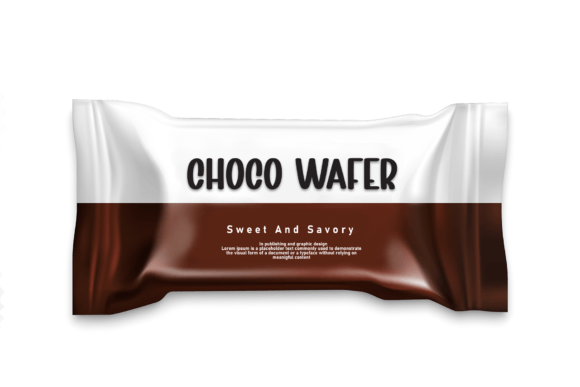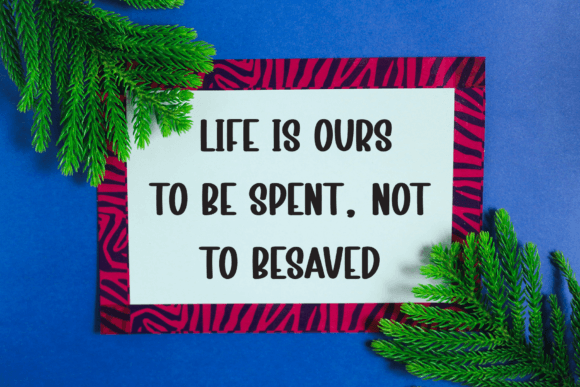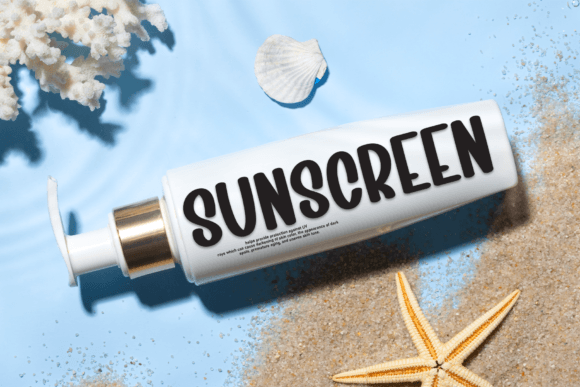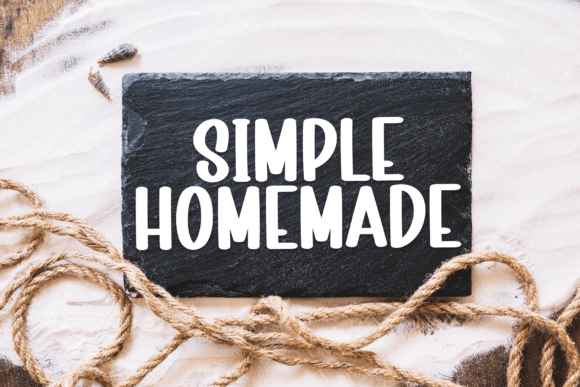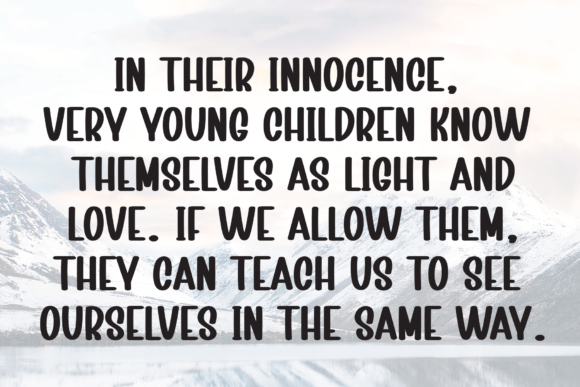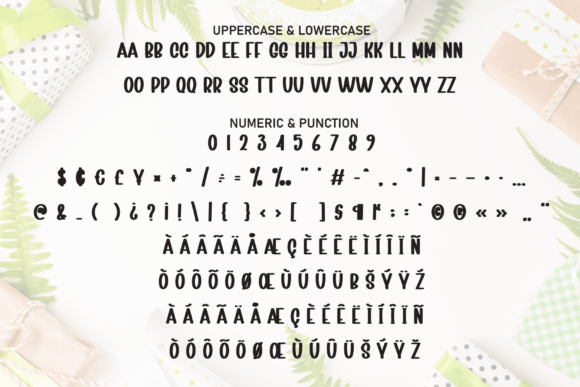
Introduction to Simple Present Font
Simple Present is a clean and bold display font.
It has straightforward lines and a modern style, making it perfect for grabbing attention in headlines or posters .
Key Features of Simple Present Font
Why Choose Simple Present Font?
Simple Present Font offers exceptional quality and versatility, making it a valuable addition to your design toolkit. Whether you’re creating for personal projects or commercial use, Simple Present Font delivers professional results.